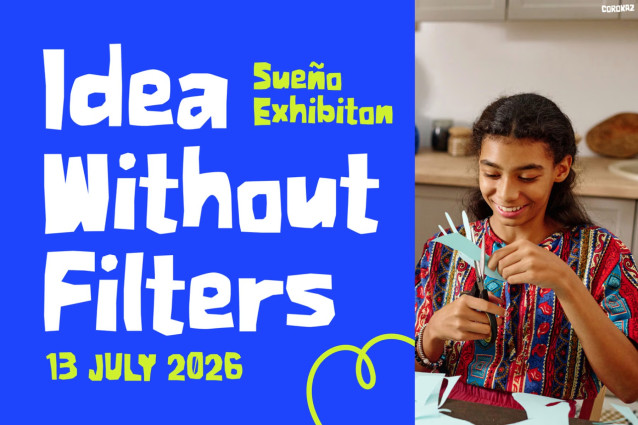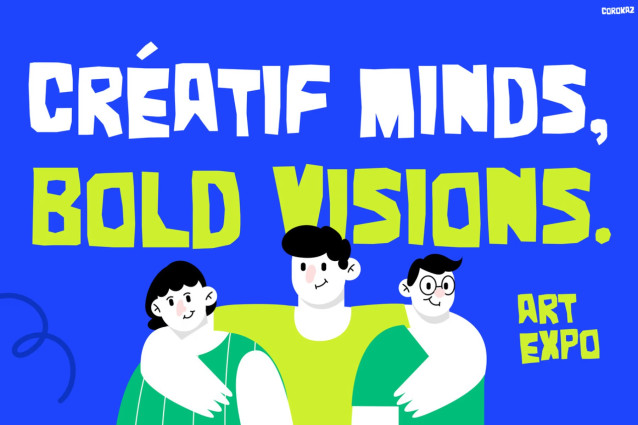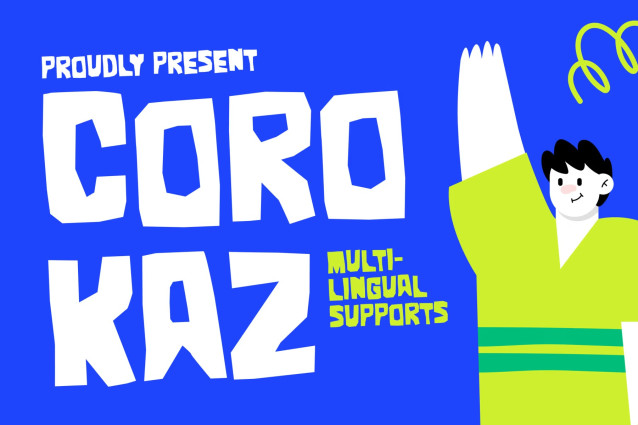
Corokaz Font
Kids Font Corokaz is a playful display font designed to unleash imagination, creativity, and youthful energy in every design. Not only does it feature bold irregular letterforms, but it also brings a fun handcrafted personality that feels expressive and full of life. Moreover, its unique shapes and imperfect details create a charming artistic style that instantly captures attention. In addition, the chunky structure ensures excellent readability while maintaining a cheerful and experimental look. Furthermore, Corokaz delivers a fresh creative spirit that makes designs feel modern, bold, and unforgettable.
As a result, every poster, branding project, and social media visual gains a stronger playful identity. Additionally, with support for 67 languages, Corokaz allows creators to share their colorful ideas with audiences around the world.